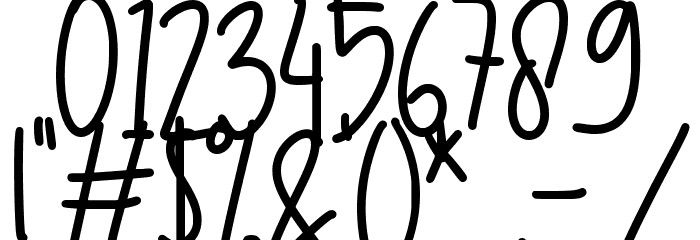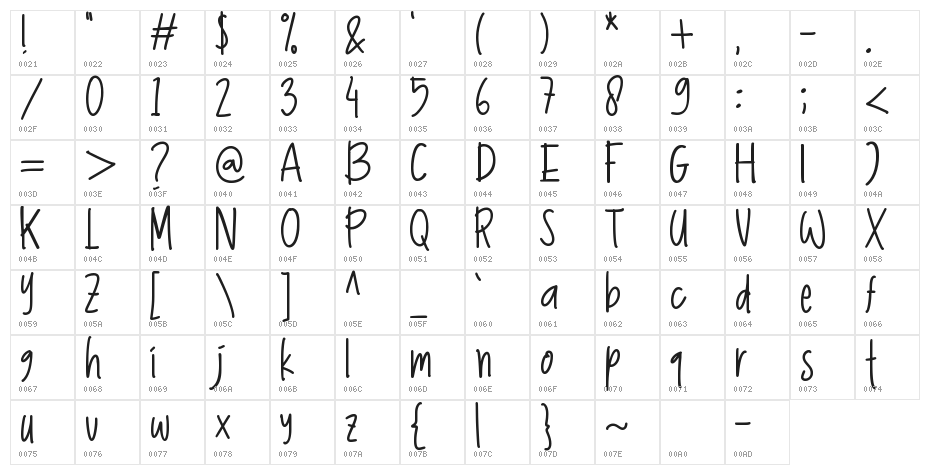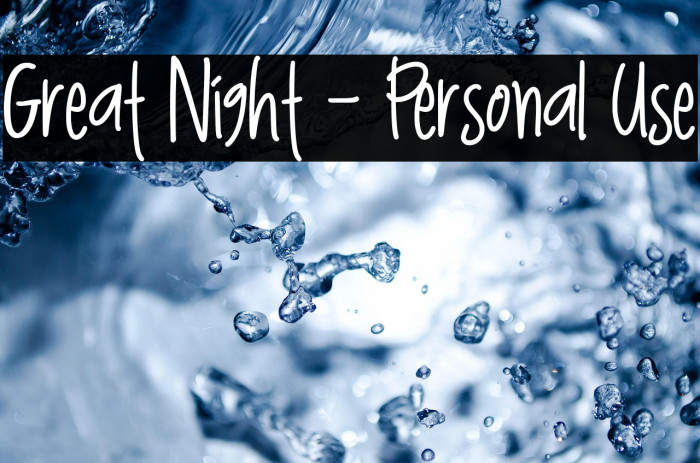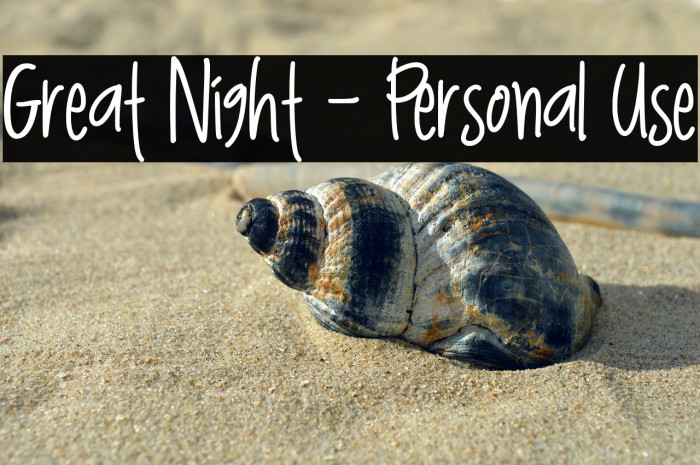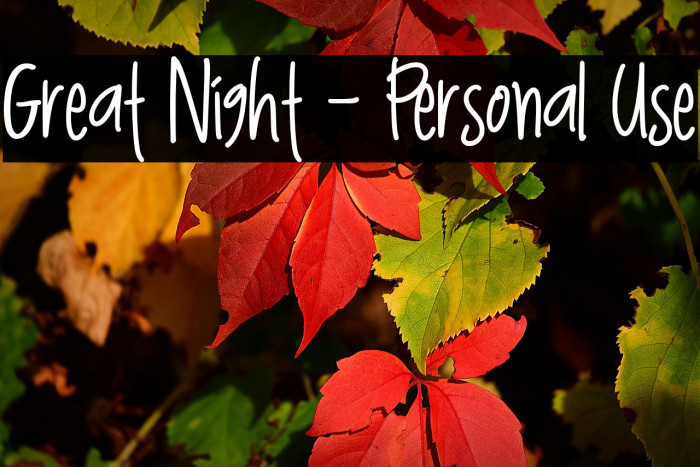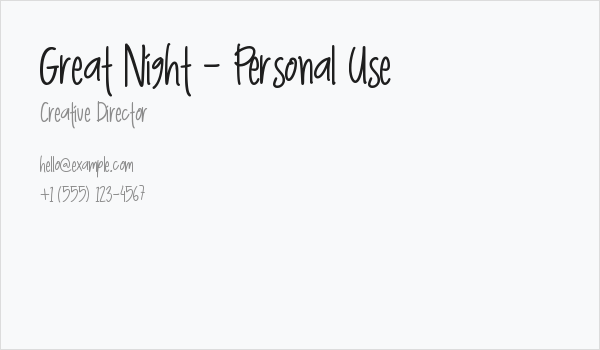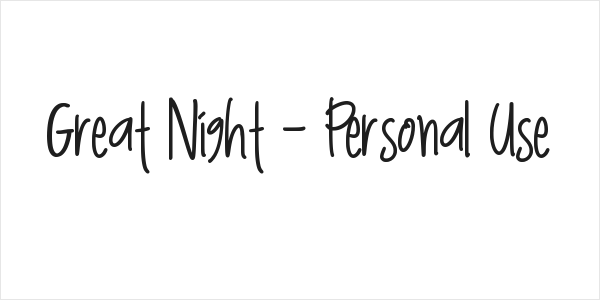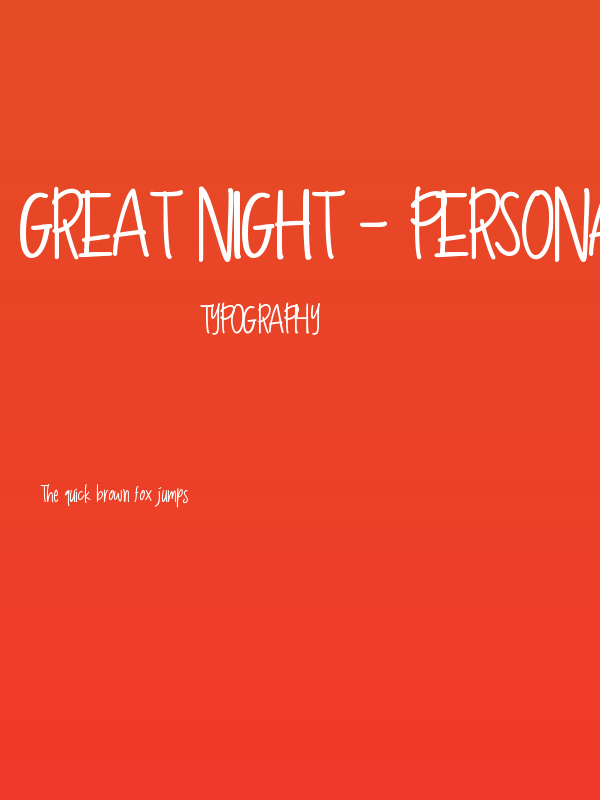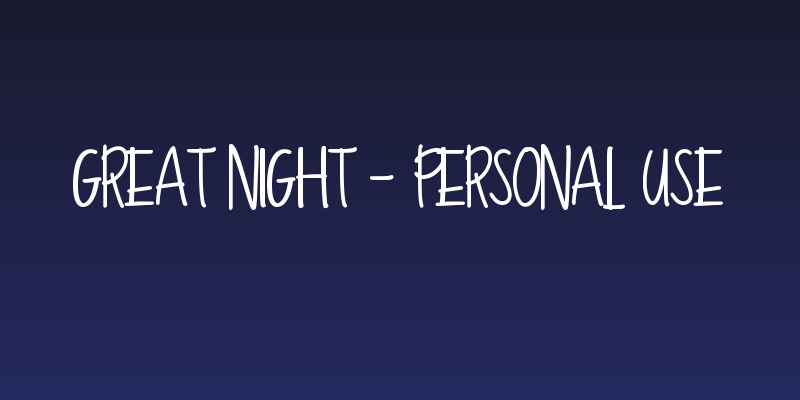
Great Night - Personal Use Font
Great Night - Personal Use Description
This font features a playful and casual handwritten style, characterized by tall, narrow letters with a slight slant. The strokes are consistent in thickness, giving it a uniform appearance. The uppercase letters are bold and prominent, while the lowercase letters maintain a friendly and approachable look. Numbers and special characters are crafted with the same playful touch, ensuring a cohesive design throughout. The font's informal style makes it ideal for projects that require a personal or whimsical touch.
| Use Case | Headlines, Informal text, Personal projects |
| Proposed Projects | Ideal for greeting cards, children's books, personal blogs, and informal branding. |